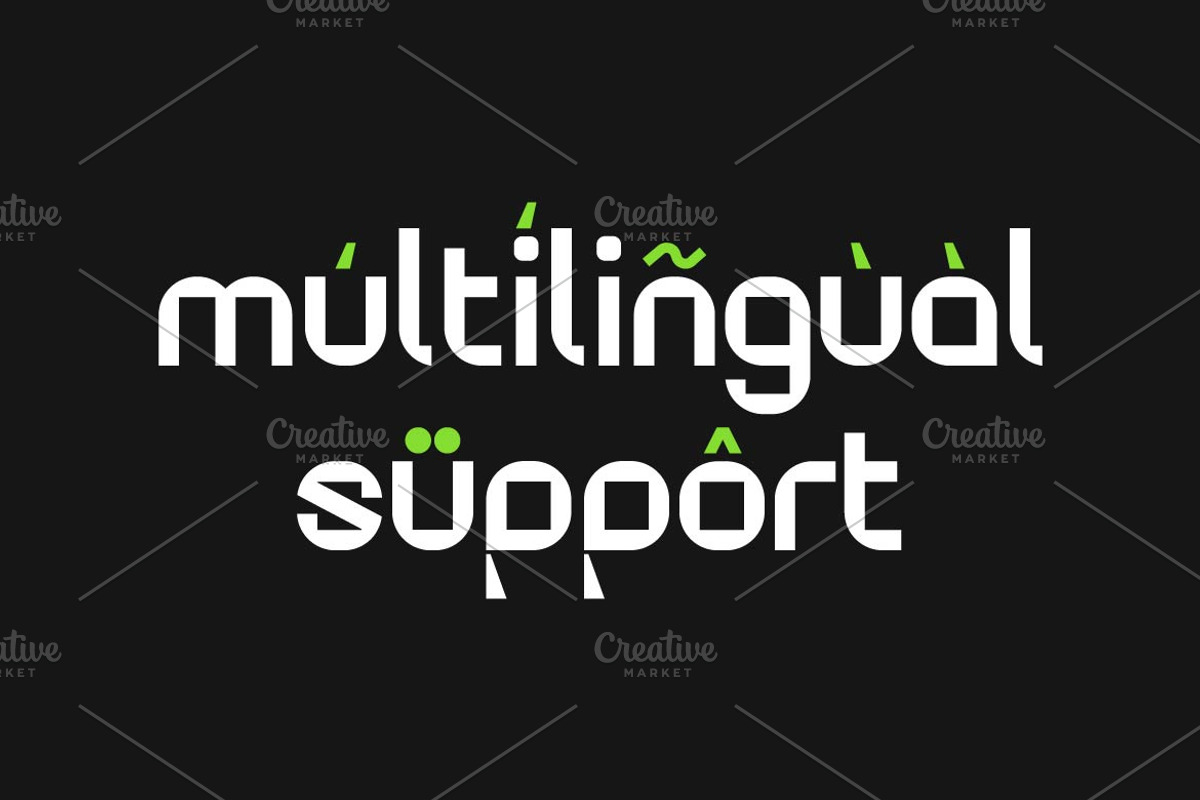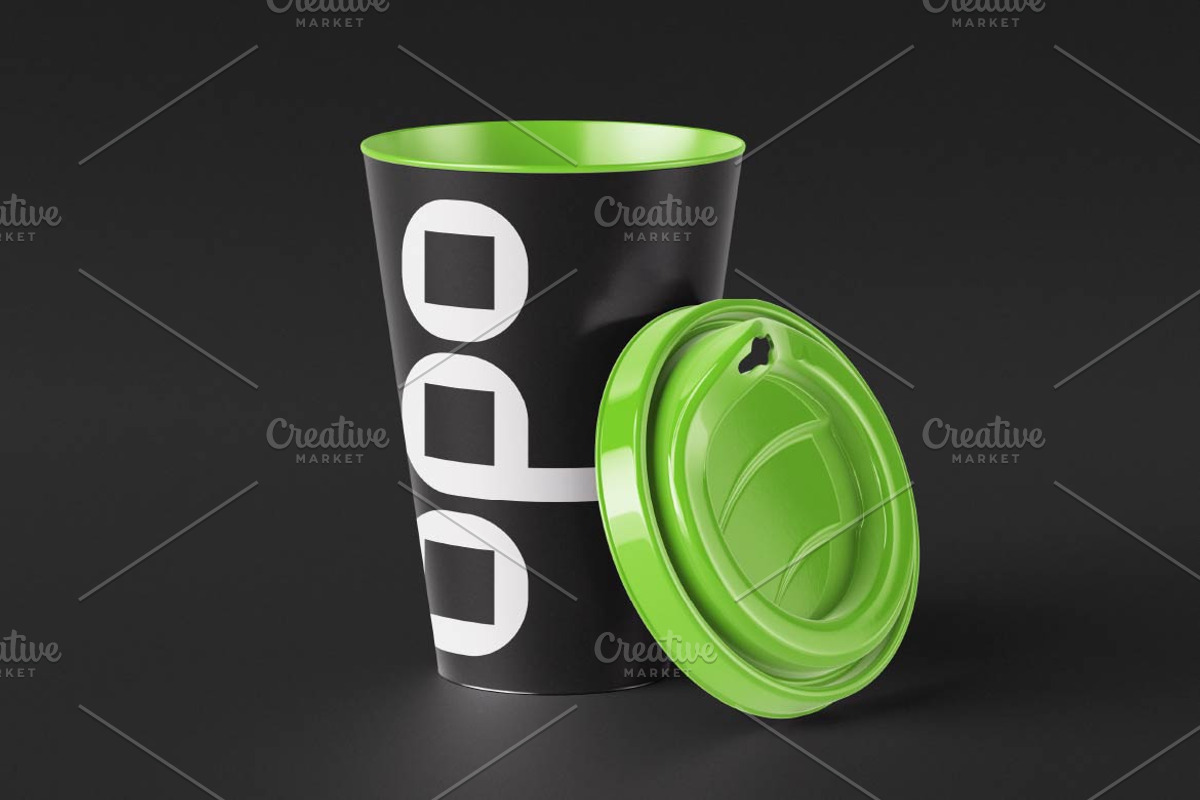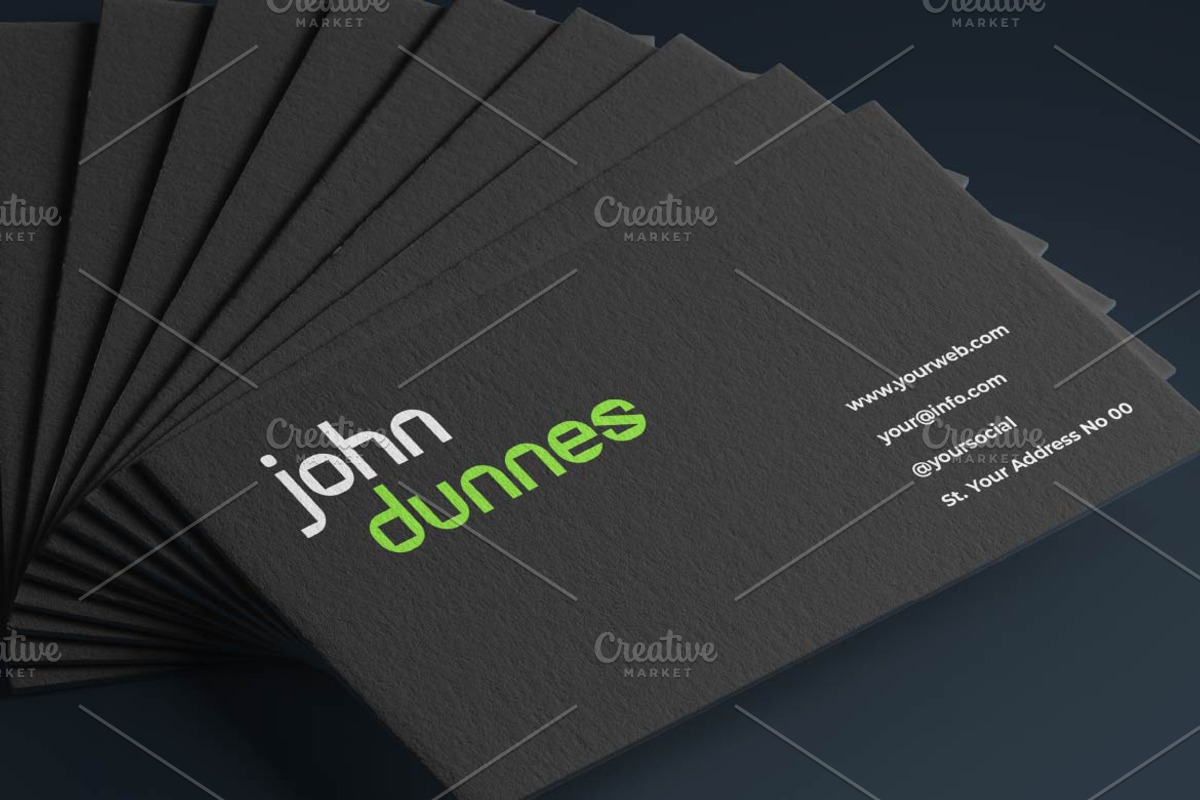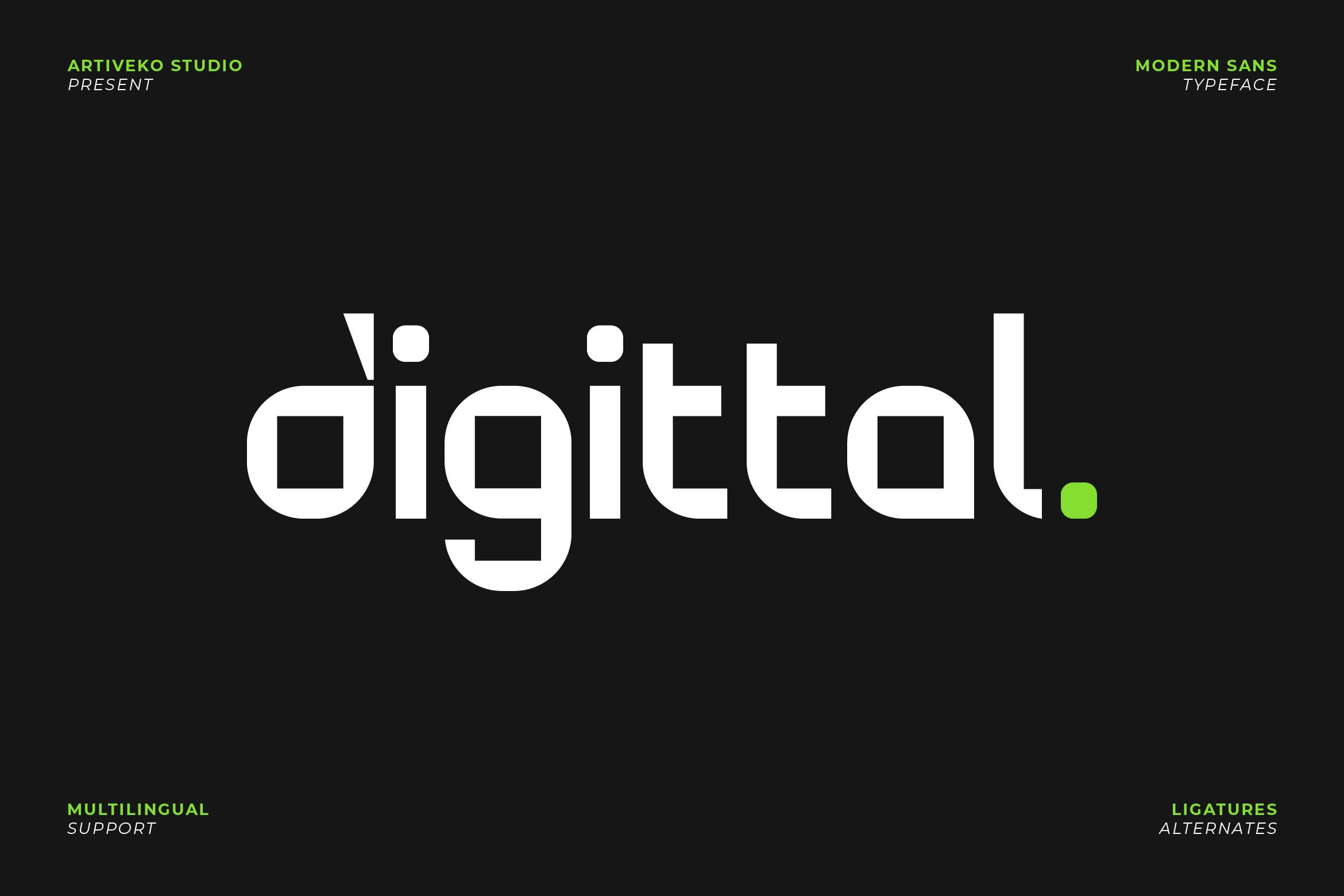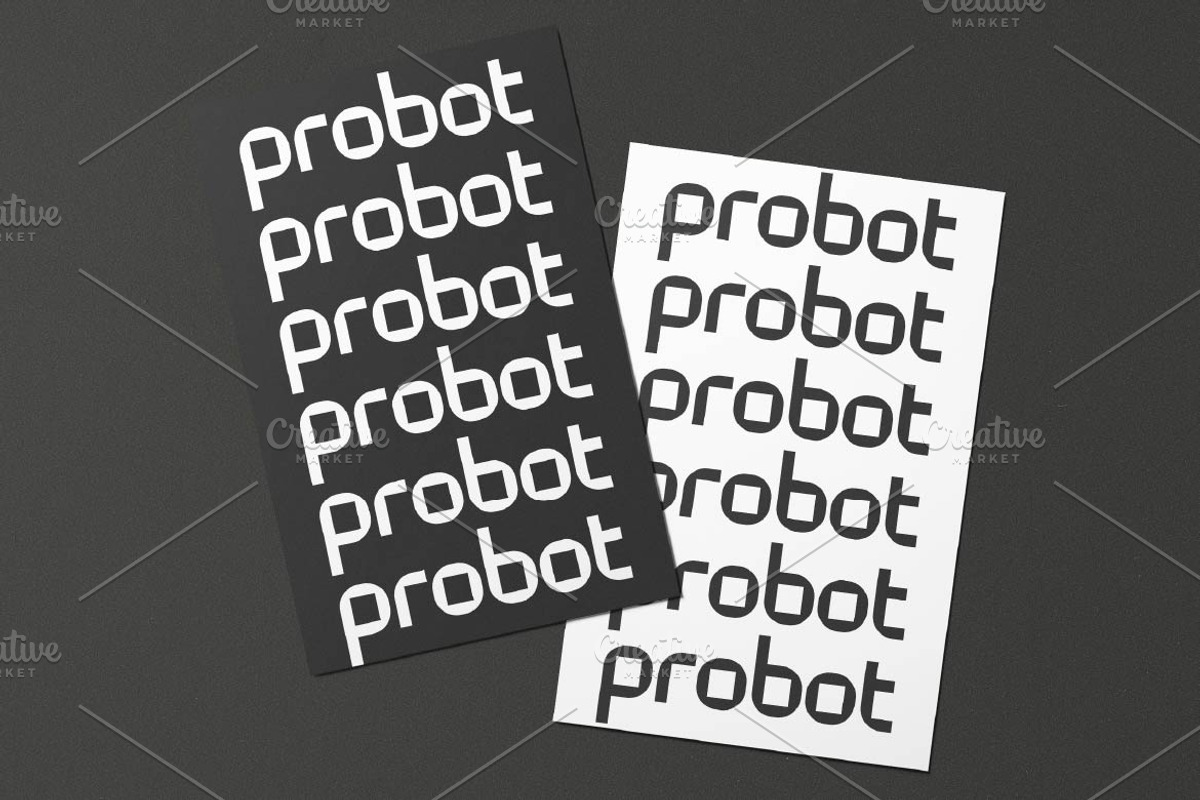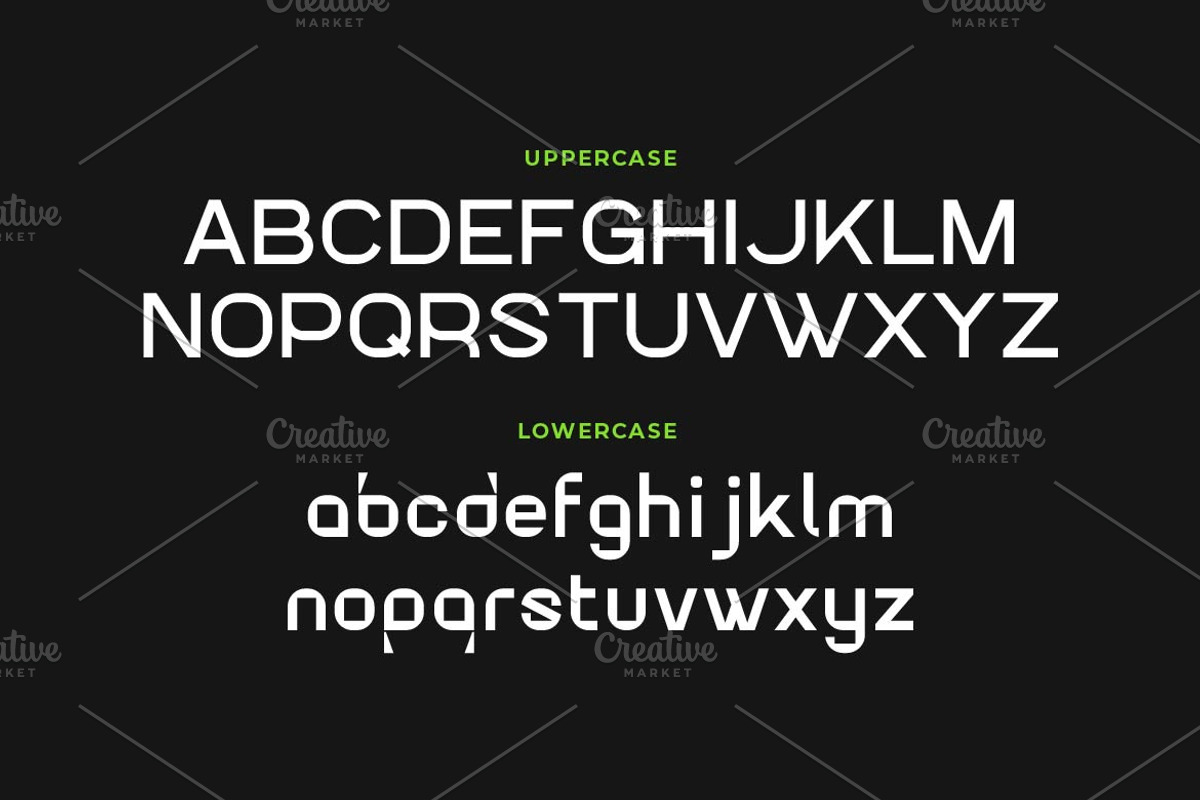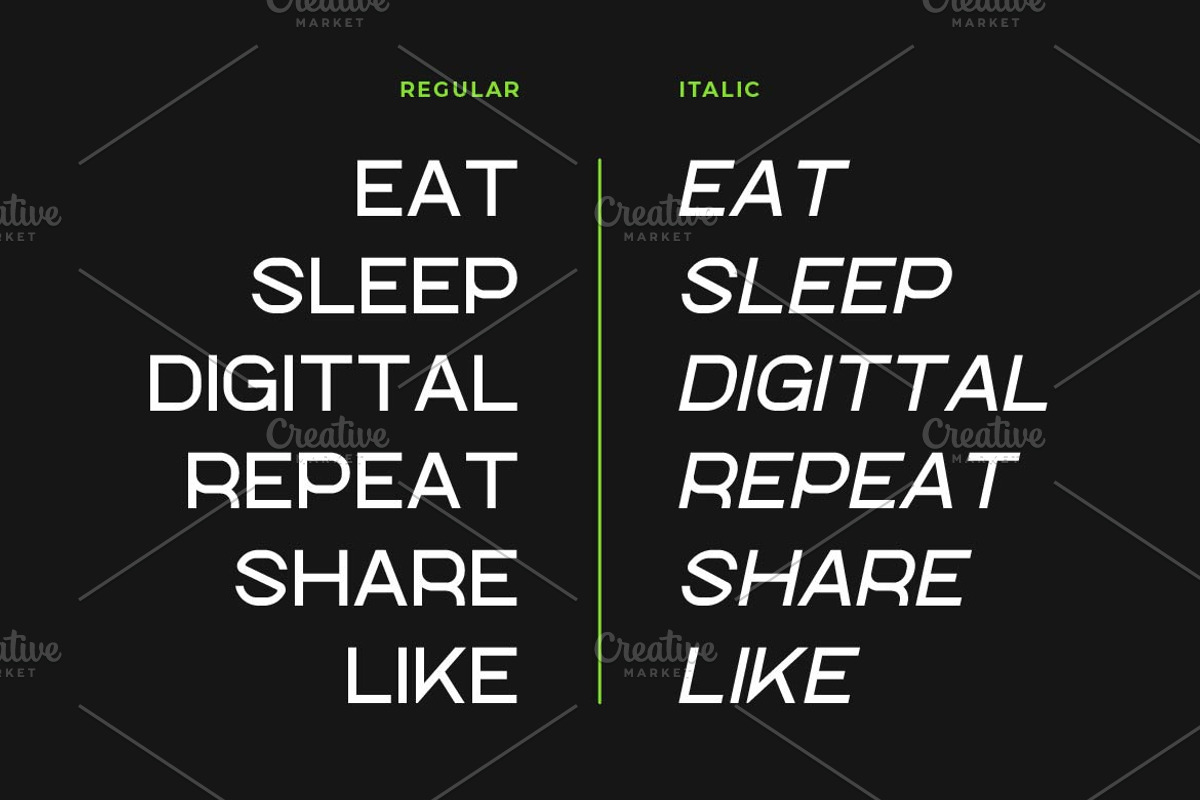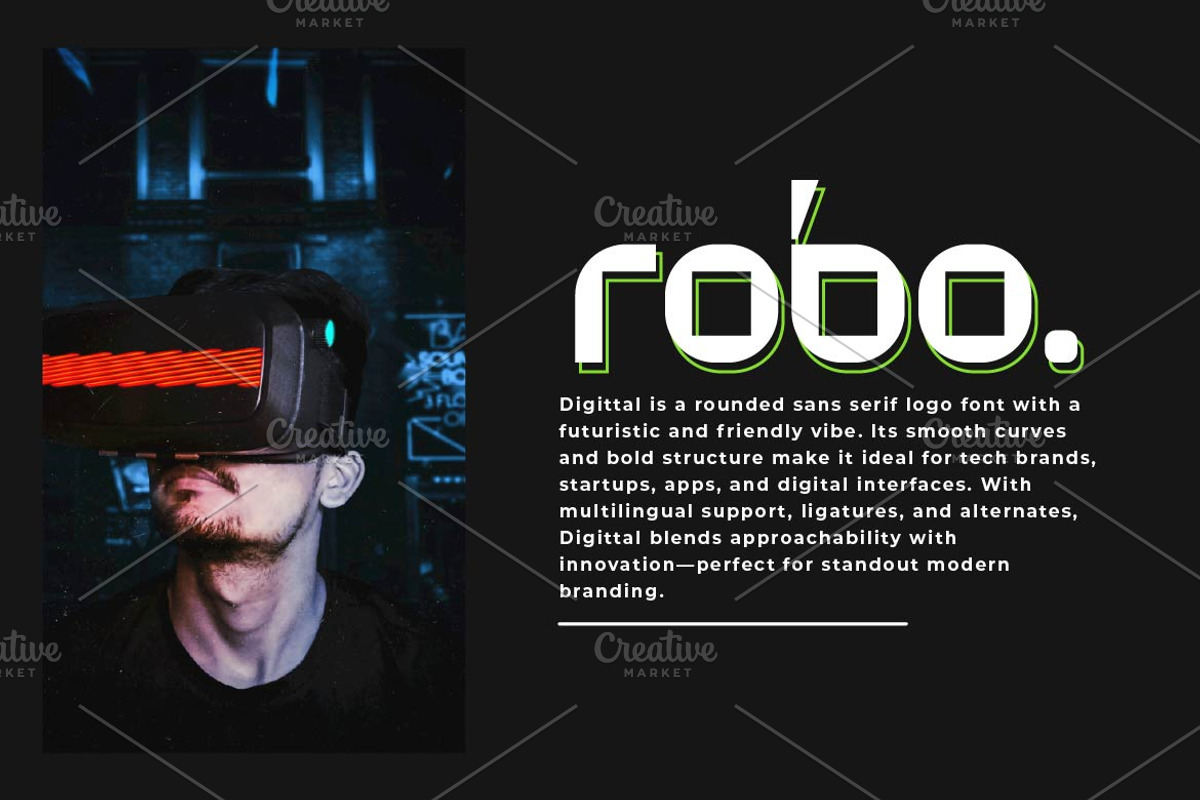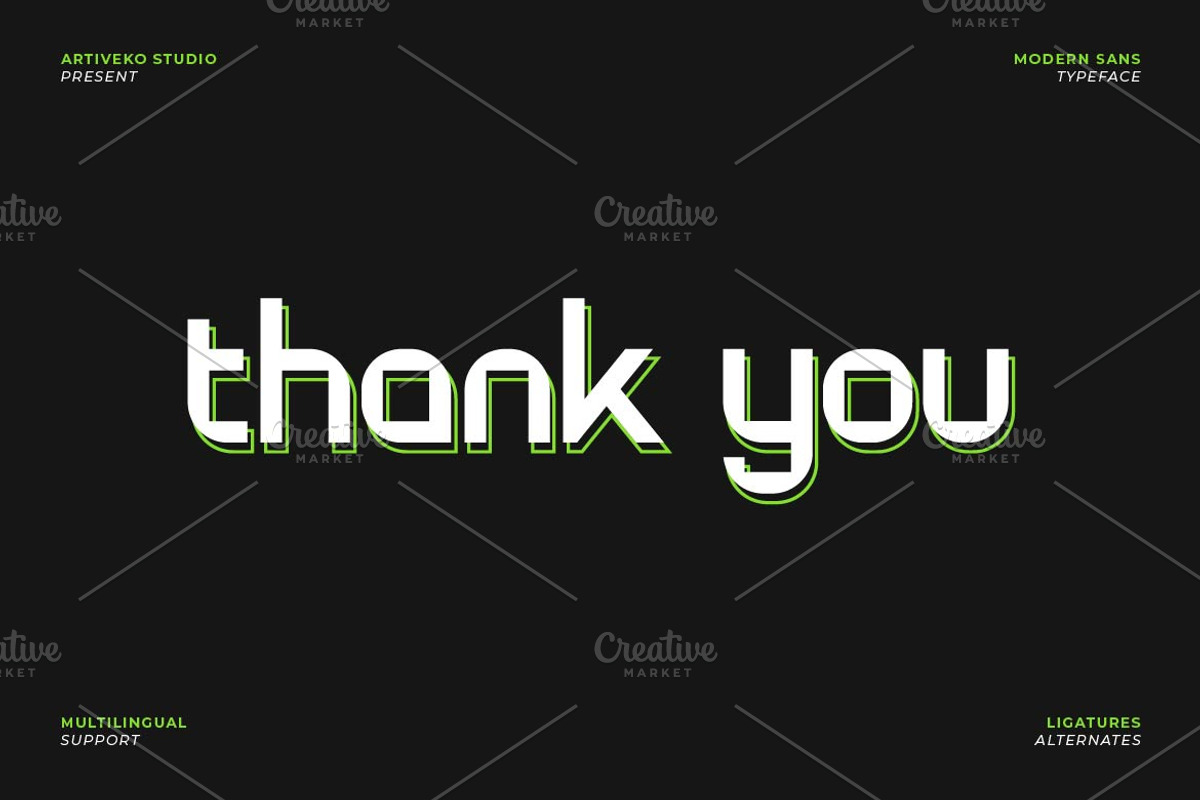
Digittal Logo Sans Font
Digittal is a rounded sans serif logo font with a futuristic and friendly vibe. Its smooth curves and bold structure make it ideal for tech brands, startups, apps, and digital interfaces. With multilingual support, ligatures, and alternates, Digittal blends approachability with innovation—perfect for standout modern branding.